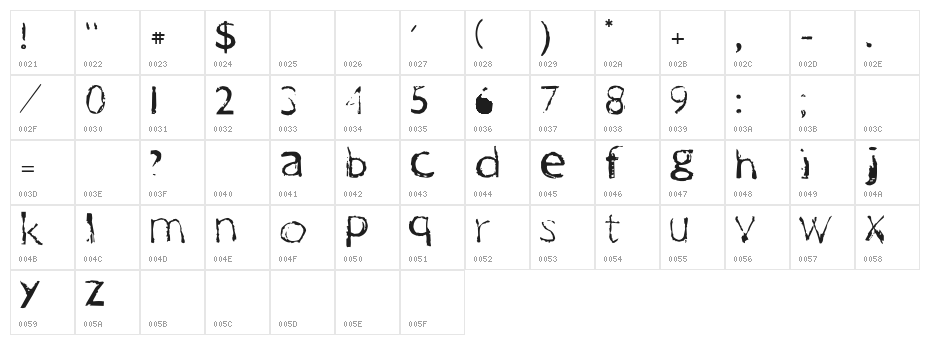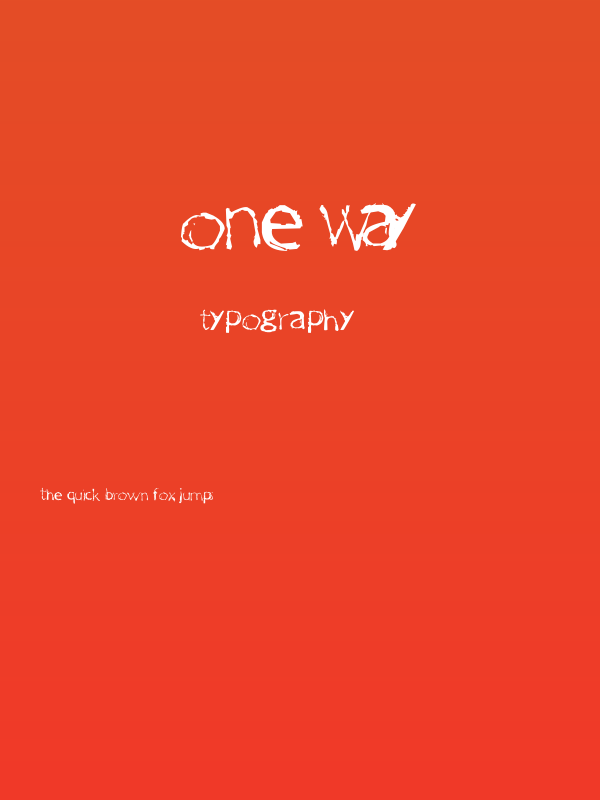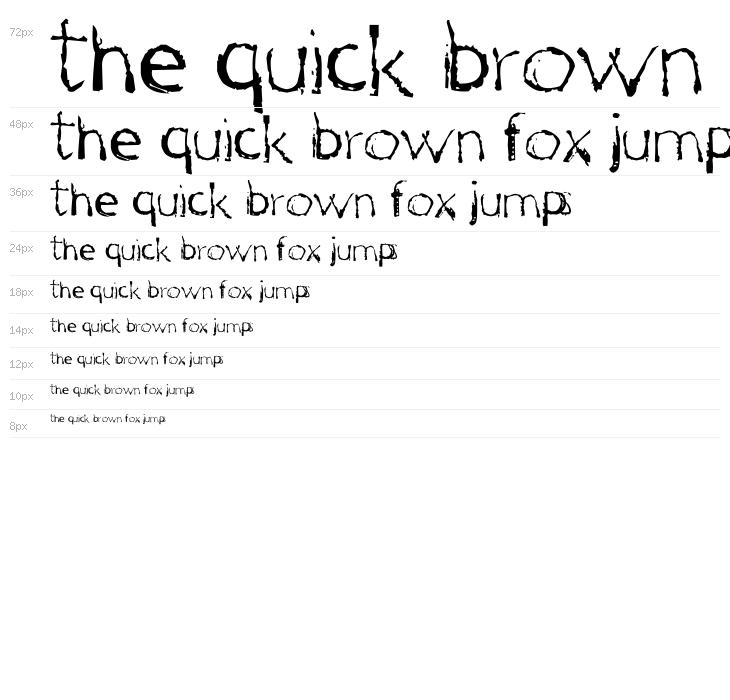
One Way Font
One Way Description
This font exhibits a distressed and grungy style, characterized by uneven edges and a rough texture that gives it a worn, weathered appearance. The letters are irregular, with varying stroke thicknesses and a hand-crafted feel. This design choice creates a sense of movement and energy, making it stand out as a bold statement piece. The numerals and special characters follow the same aesthetic, maintaining consistency across the typeface. The overall look is raw and edgy, suitable for projects that aim to convey a sense of rebellion or nonconformity.
| Overall Style | Grunge, Edgy, Raw |
| Use Case | Logos, Posters, Album Covers |
| Proposed Projects | Ideal for music album covers, streetwear branding, skateboarding graphics, or any project seeking an edgy, rebellious vibe. |